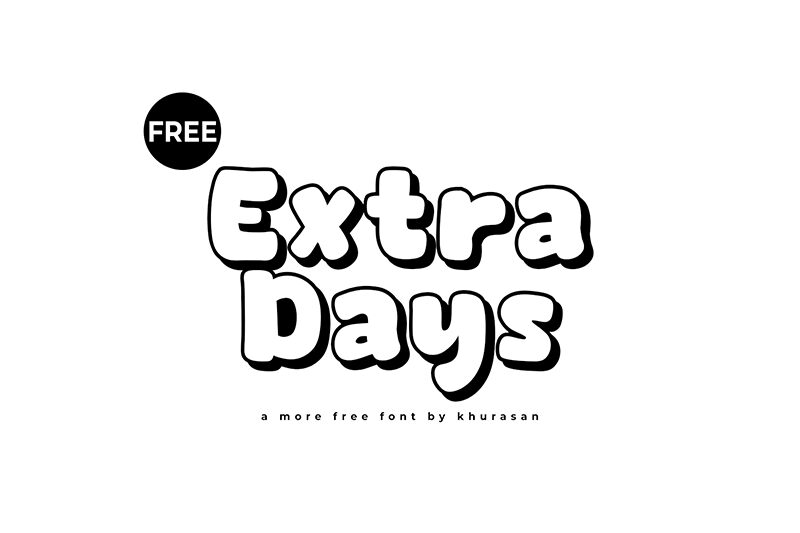
Extra Days font by Khurasan is a cartoon display font featuring a retro-inspired style. Designed with playful and cheerful vibes, this bold font has an extra rounded, whimsical appearance. It’s joyful and fun to use when you want to “draw a smile” on your audience faces.
Use Extra Days for free in book covers, children’s books and publications, animation design, and video games. It also rocks when displayed in commercials or on advertising banners, billboards, social media posts, logos or even branding materials. Have fun editing your food labels and packages with equally mesmerising texts!